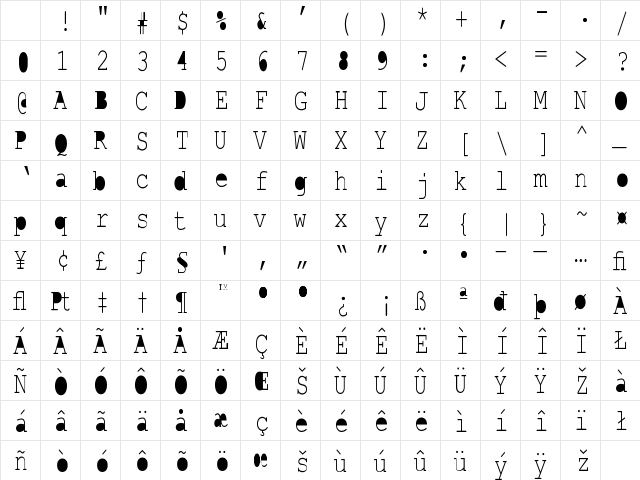
Complete Parcour Normal glyph index. Displaying only characters natively supported by Parcour Normal font.
Parcour is a composed and adaptable typeface that performs quietly and consistently across a wide range of design contexts.